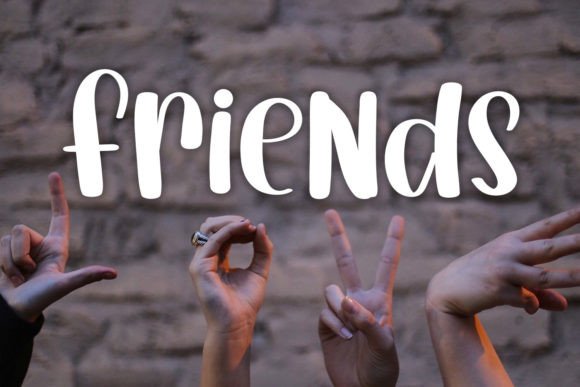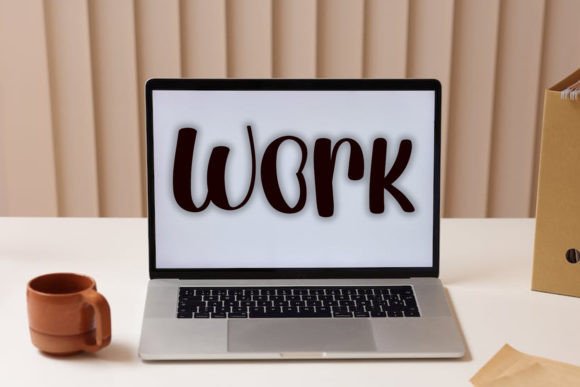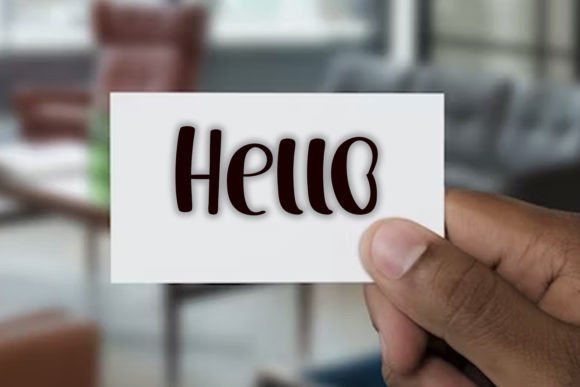
Introducing Brother Font: Elevate Your Designs with a Fresh and Beautiful Typeface
In the world of design, typography plays a crucial role in capturing the essence of a brand or creative project. A well-chosen font can make all the difference, setting the tone and aesthetic for various design applications. If you’re on the hunt for a versatile and visually appealing font to elevate your designs, look no further than Brother Font. This fresh and beautiful typeface is perfect for a wide range of design purposes, including YouTube banners, cover logos, mockups, wedding invitations, ID cards, flyers, crafts, and more.
The Versatility of Brother Font
Brother Font is designed to be highly versatile, making it an excellent addition to any designer’s toolkit. Its clean lines, elegant curves, and balanced proportions ensure that it looks great in various contexts. Whether you’re creating a stunning YouTube banner, a professional ID card, or a beautiful wedding invitation, Brother Font adapts seamlessly to different design requirements.
Key Features of Brother Font
- Fresh and Beautiful Design: Brother Font boasts a modern and attractive design that will instantly elevate your creations.
- Highly Versatile: Suitable for a wide range of design applications, from digital projects like YouTube banners and social media graphics to print materials such as flyers, brochures, and wedding invitations.
- Elegant and Professional: The font’s elegant curves and balanced proportions give it a professional look, making it perfect for business-related designs, such as logos and ID cards.
- Easy to Read: Despite its elegant appearance, Brother Font remains highly legible, ensuring that your message is communicated clearly.
How Brother Font Can Benefit Your Business or Design Projects
By incorporating Brother Font into your designs, you can significantly enhance the visual appeal and professionalism of your projects. Here are some ways this font can benefit your business or design endeavors:
- Enhanced Brand Image: A well-designed font like Brother Font can contribute to a more polished and cohesive brand image, helping you establish a strong presence in your industry.
- Increased Engagement: Visually appealing designs are more likely to capture the attention of your audience, leading to increased engagement and a more significant impact.
- Professionalism and Credibility: The use of a high-quality font like Brother Font can enhance the perceived professionalism and credibility of your business or project.
Tips for Using Brother Font Effectively
To get the most out of Brother Font, consider the following tips:
- Pair it with Complementary Fonts: Experiment with font combinations to create visual interest and hierarchy in your designs.
- Adjust Font Sizes and Weights: Play with different font sizes and weights to add emphasis and create a more dynamic design.
- Consider Color and Texture: Don’t forget to think about the color and texture of your design, as these elements can significantly impact the overall aesthetic.